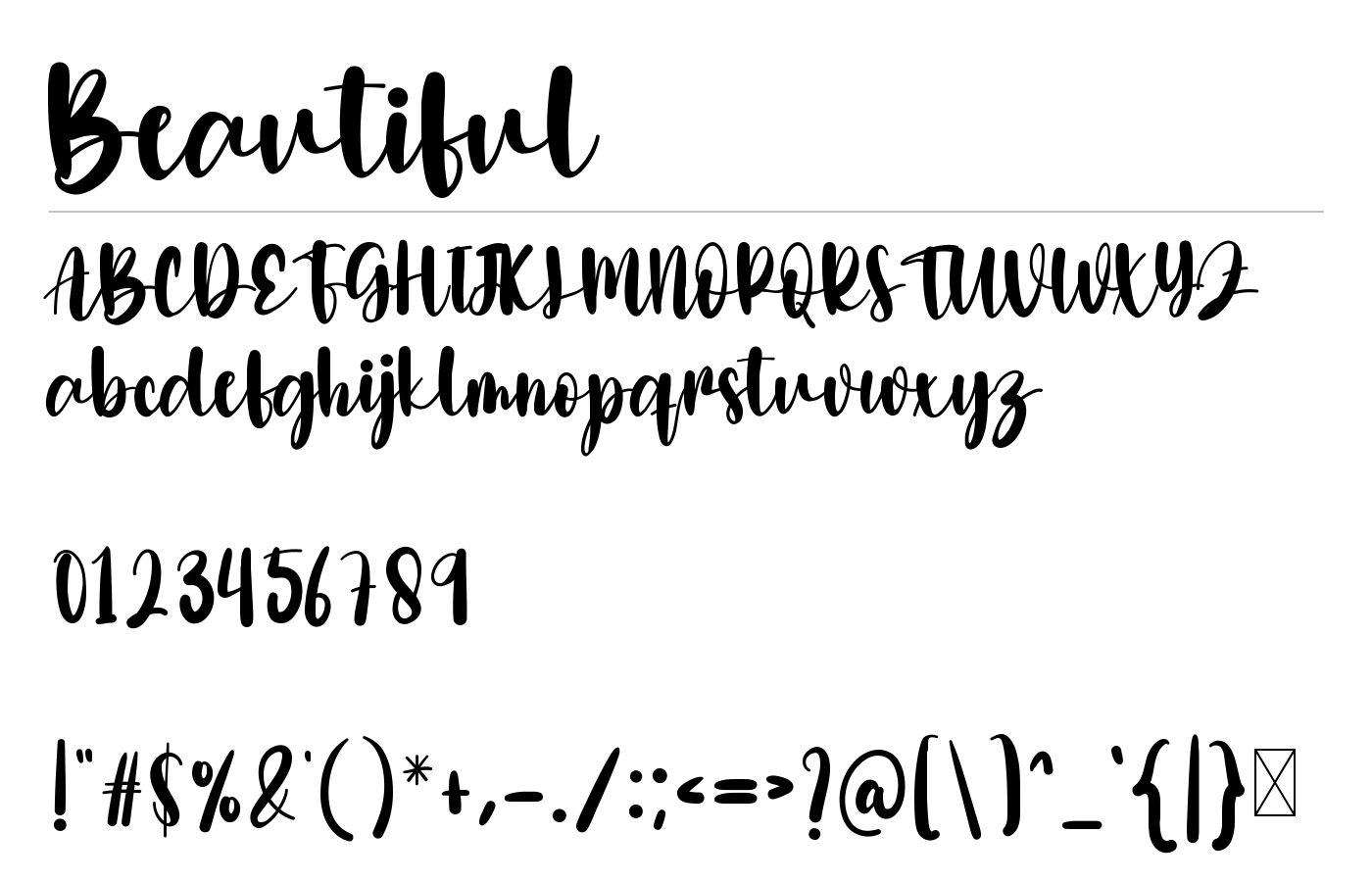
Beautiful Font is a lively and charming script typeface with thick, brush-like strokes that give it a warm, handcrafted feel. Its tall, flowing letterforms combined with playful curves and consistent weight make it ideal for creative and feminine designs, perfect for invitations, branding, and social media graphics that seek a personal, friendly touch.
Beautiful Font
About Beautiful Font